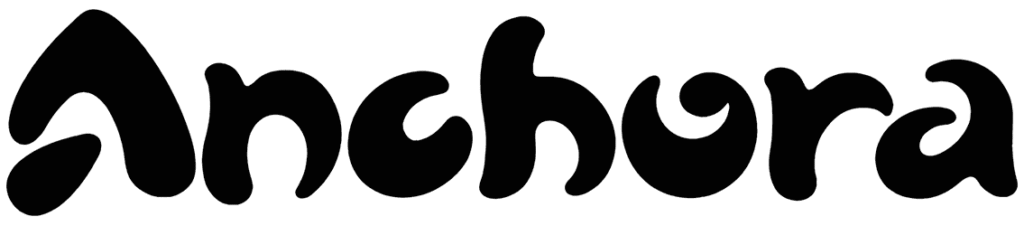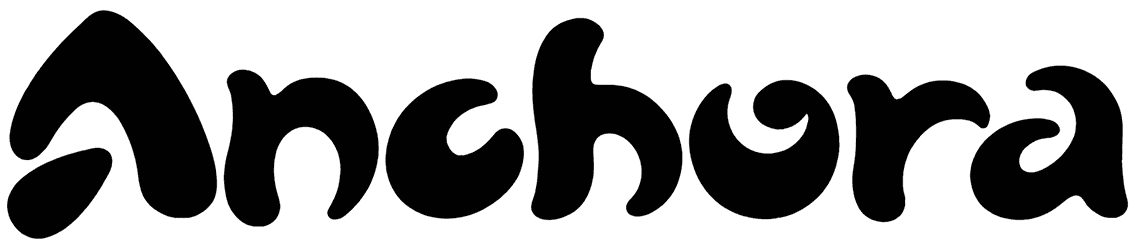
Anchora Font
Anchora is like returning to an era of free love and psychedelic colours. This groovy font exudes an atmosphere of carefree fun with its prominent curves and lines that almost dance across the screen of a poster or computer game.
So if you are looking for a unique option to create designs that need to stand out from the rest, Anchora can capture the spirit of the 70s and 60s and bring it to today.